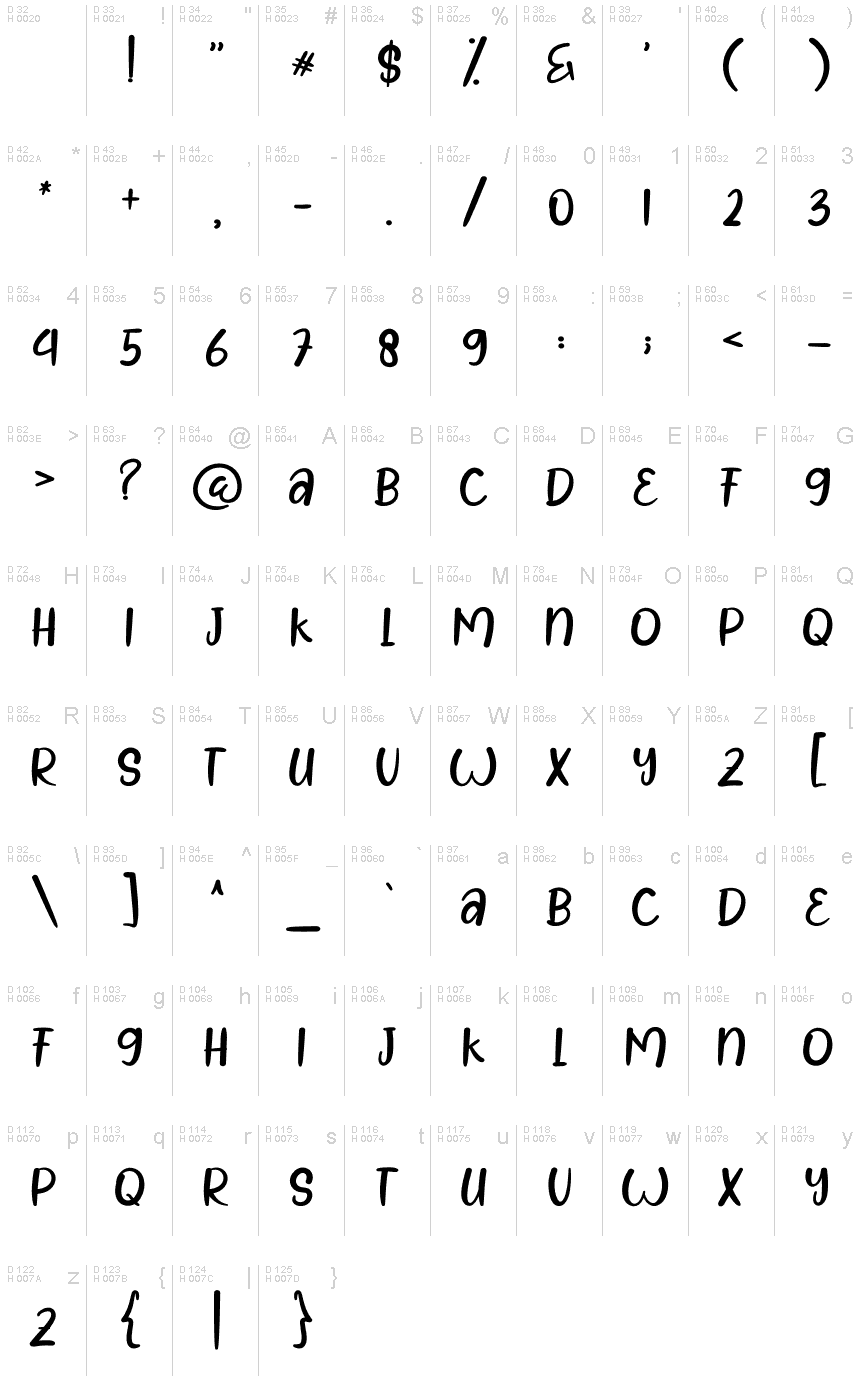
Christmas Tree
Christmas Tree, a semi-light handwritten font designed by Etik Fatimah, exudes a personal touch that adds warmth and charm to any creative project. With its unique characteristics, this font captures the essence of intimate handwriting, making it ideal for designs that require an organic and approachable feel. The semi-light weight of Christmas Tree provides a delicate balance, ensuring readability while retaining an air of whimsy.
The aesthetic appeal of Christmas Tree lies in its ability to evoke the festive spirit with a casual elegance. Its style is both relaxed and engaging, making it well-suited for holiday-themed graphics, heartfelt invitations, or personalized branding endeavors. This font's versatility extends to digital platforms as well as print media—wherever a touch of handcrafted personality is desired.
Embrace the versatility and heartfelt style of Christmas Tree for your next design venture and let its distinctive handwritten quality bring your creative concepts to life with an authentic flourish.